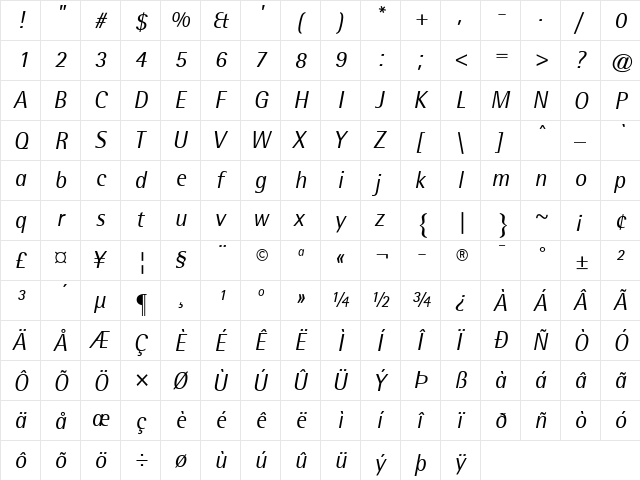
RotisSemiSans Italic Font Preview
RotisSemiSans Italic
RotisSemiSans Italic Font Details
Design Context for RotisSemiSans Typeface
RotisSemiSans is a composed and adaptable typeface that performs quietly and consistently across a wide range of design contexts. The dynamic lean of this cut emphasises speed and emphasis in any layout.
Pro Tip: Try RotisSemiSans for annotation and caption copy alongside an upright companion — the contrast in angle creates a dynamic but ordered typographic system.